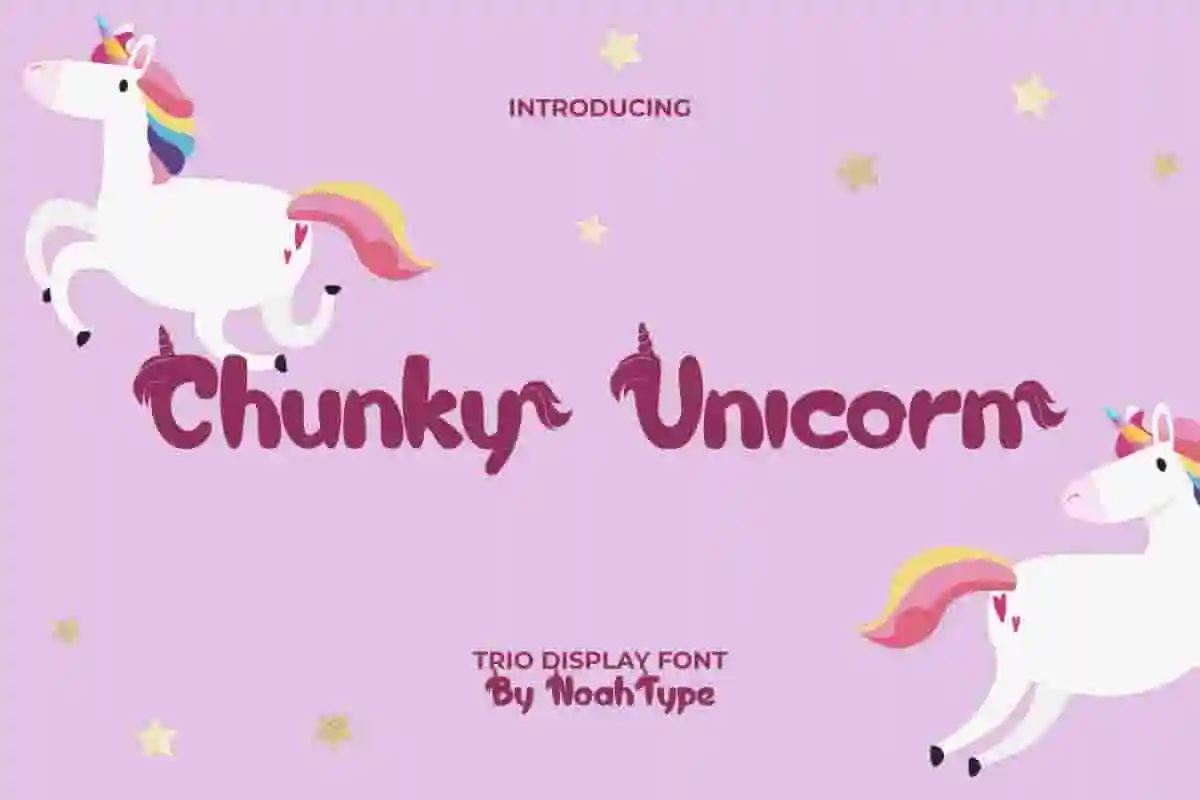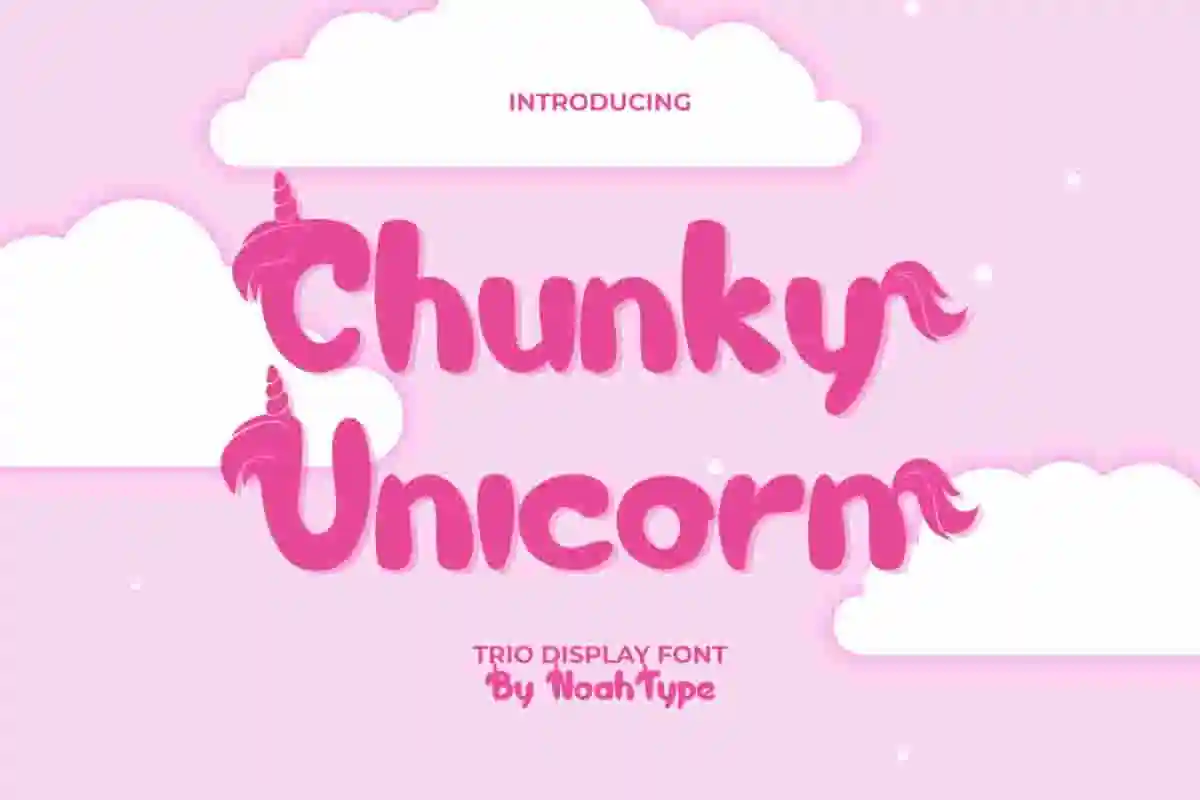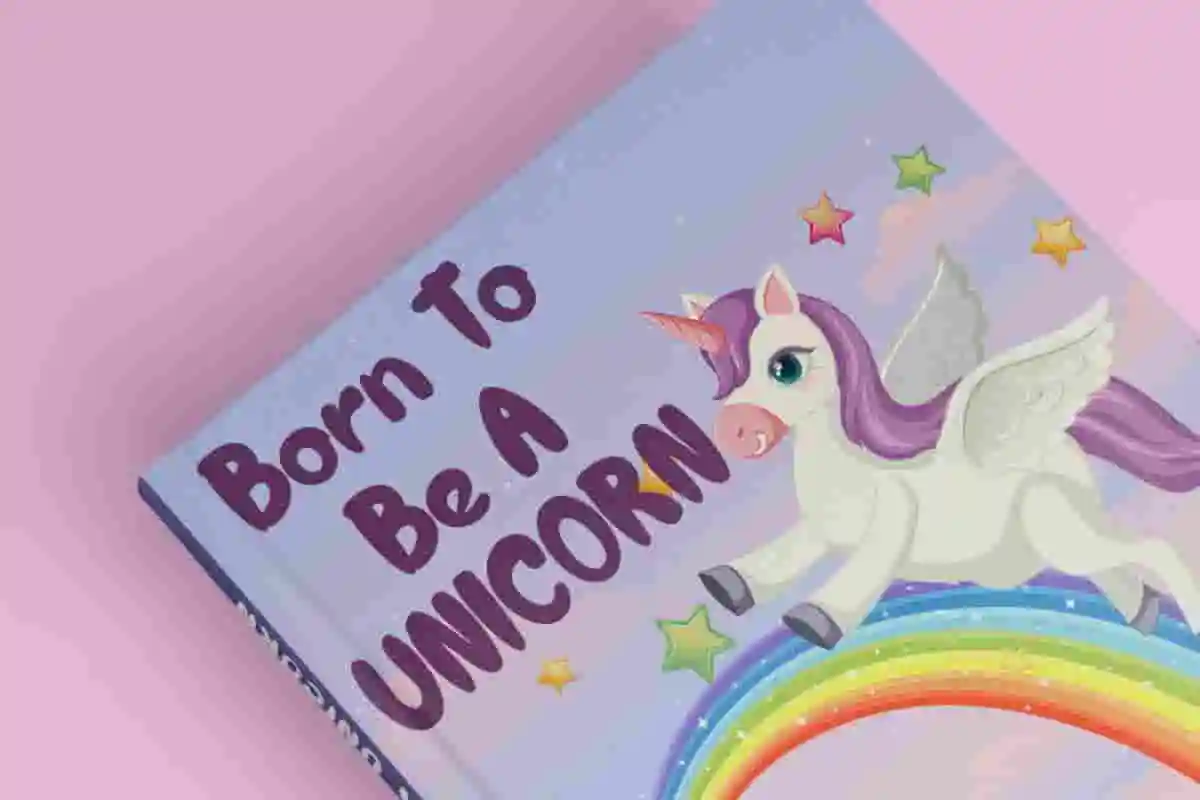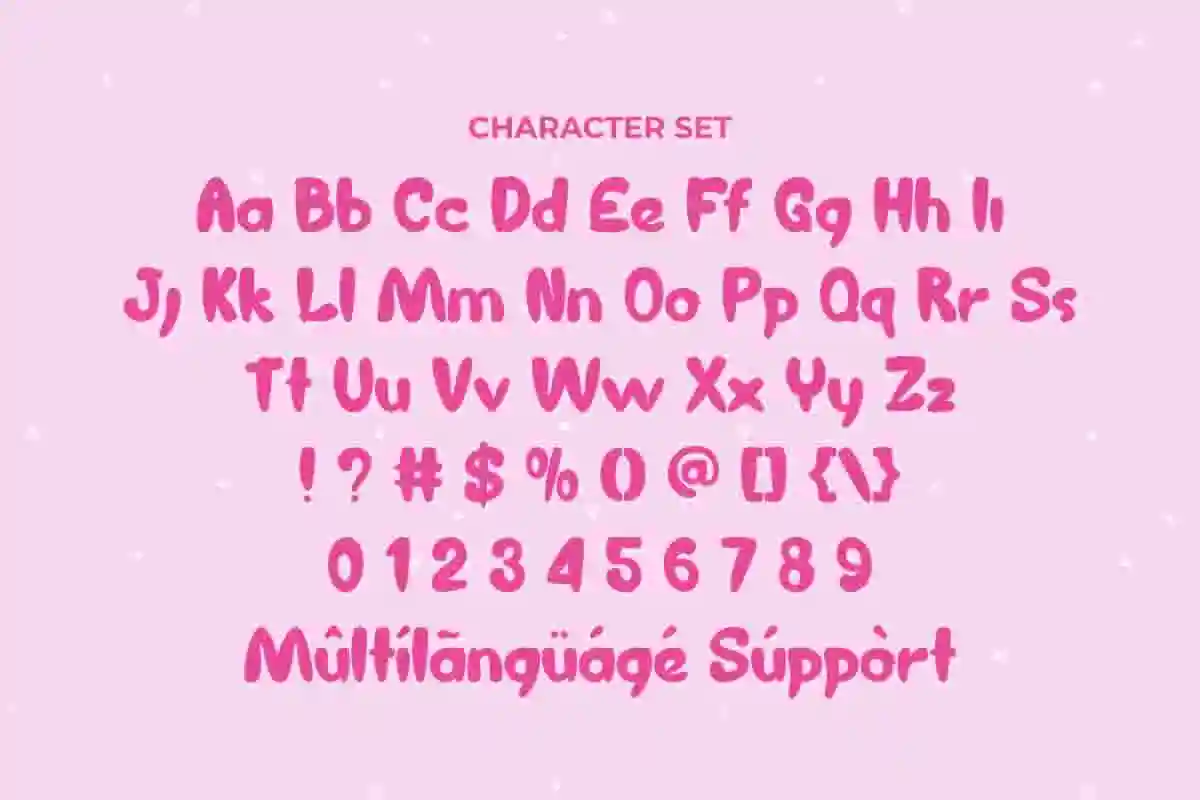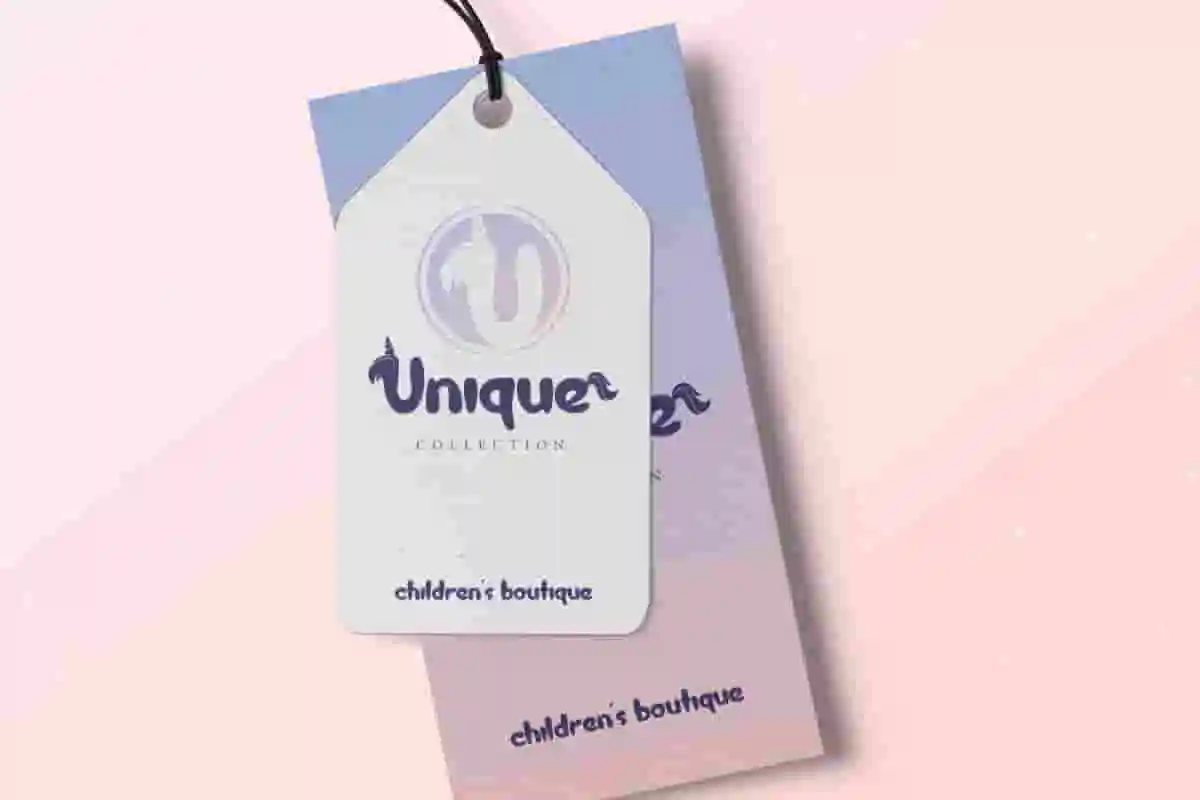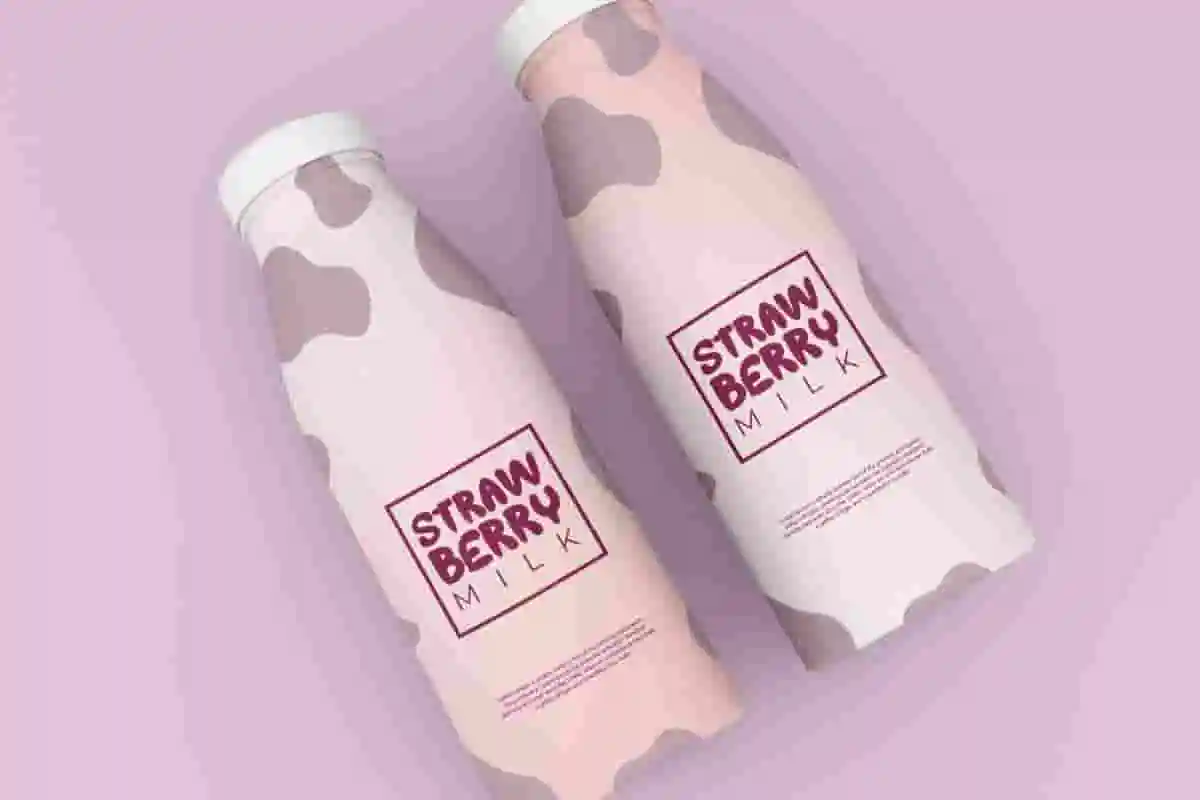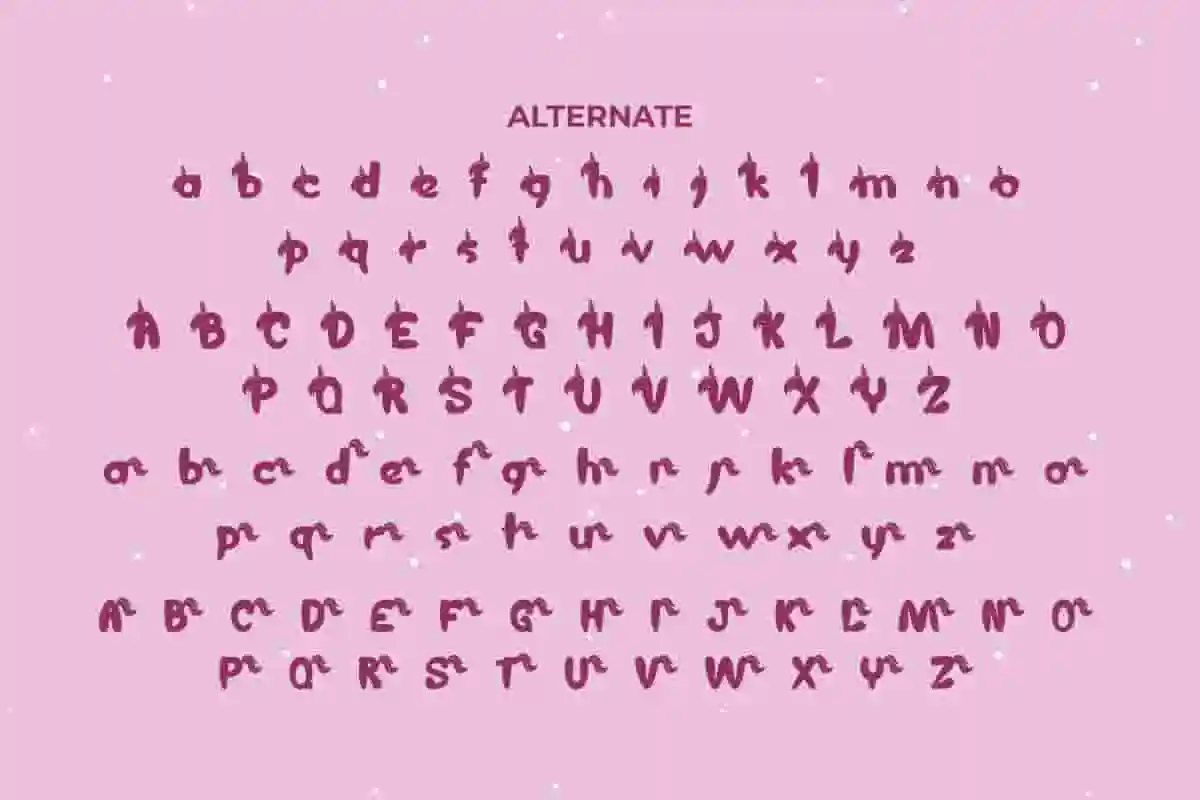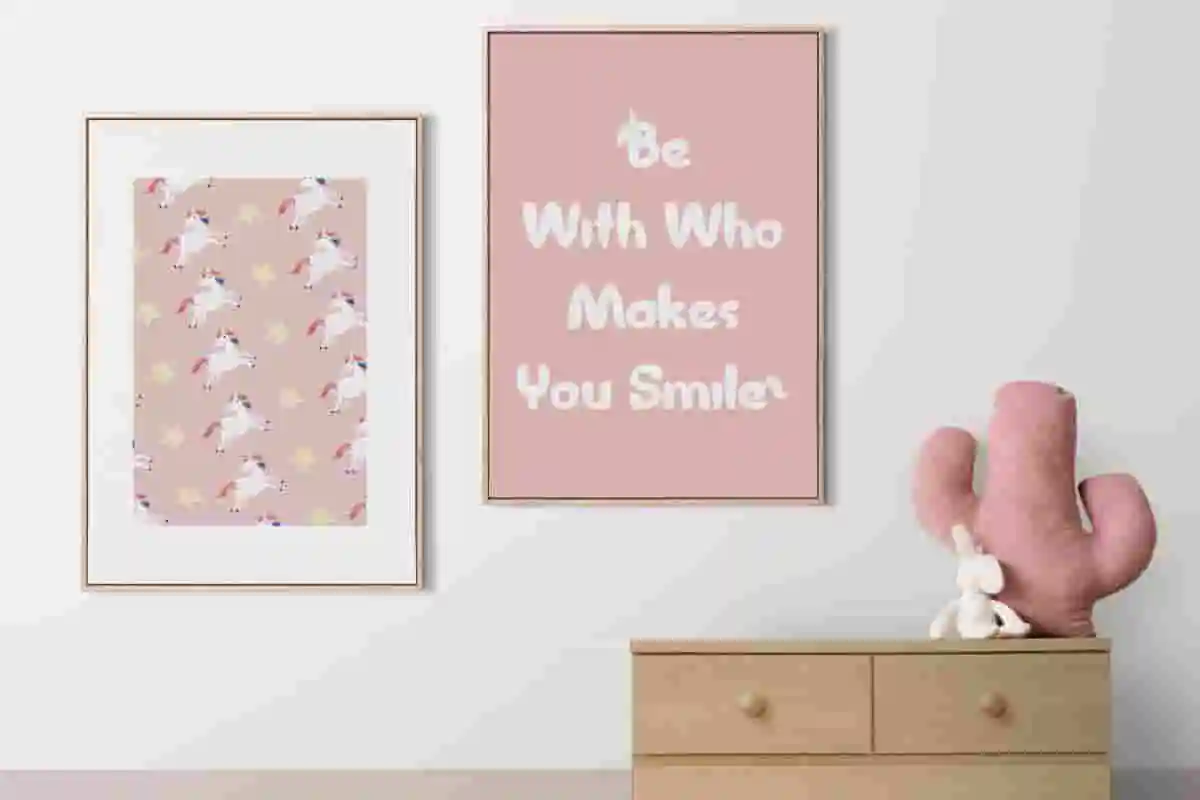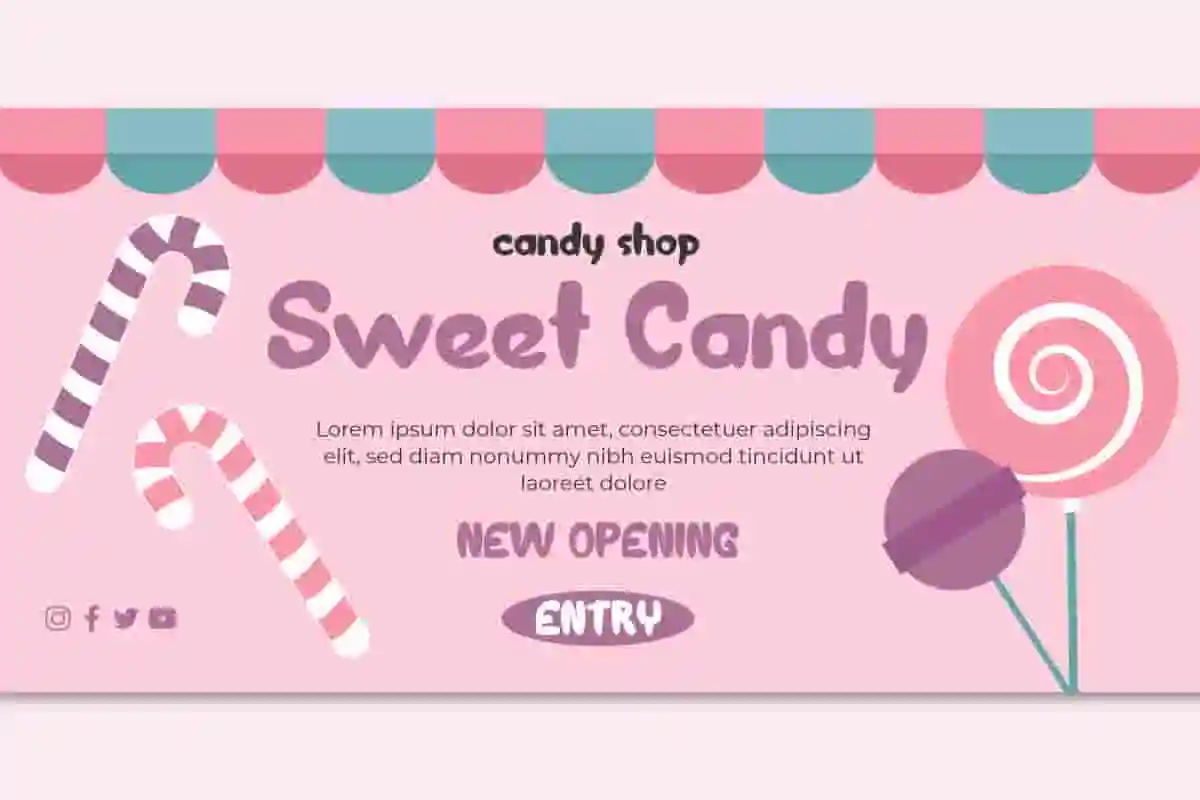
Chunky Unicorn Font is a playful display font with cartoon style created by NoahType, inspired by the unicorn horse character in fairy tales. This font has trio display: regular, alternative full set of horns and tails. It will be amazing for any industry: author, craft (e.g. DIY project), fashion, food, kids stuff, party event, school, sweet shop, toy store, and more.
Chunky Unicorn Font includes full set of Uppercase and Lowercase Basic Characters, Numerals, Punctuation. This font has alternate characters on the letters that offer a different and unique fantasy look. It will be amazing for any project: billboard, birthday card, branding, creating logo, invitation, label, product packaging, quotes, stationery, title, and more.
Unleash your creativity with Chunky Unicorn Trio Display Font, a magical typeface designed to make every project stand out.
Inspired by whimsical charm and bold display lettering, Chunky Unicorn Trio Display Font is perfect for adding a fun, friendly, and vibrant touch to your work. Whether you’re designing for children’s books, party invitations, product packaging, or playful branding, this font will bring your ideas to life with personality and flair.